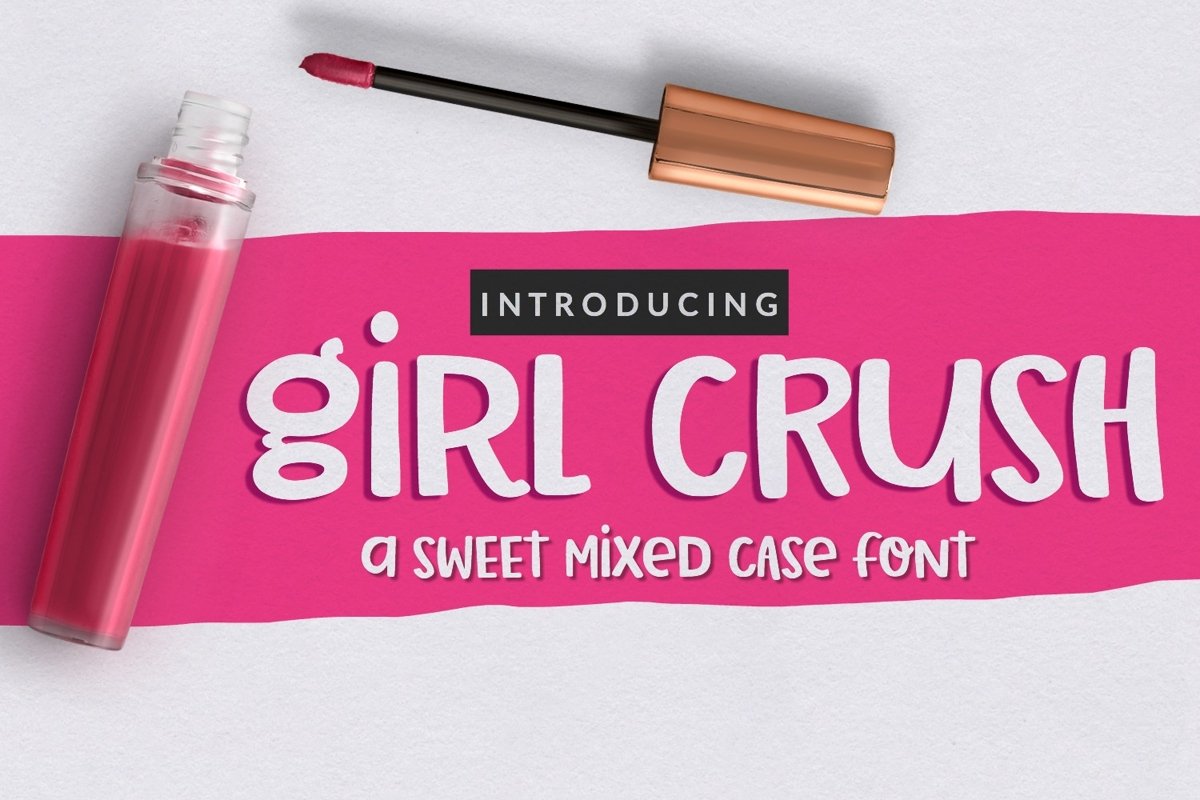
Girl Crush Handwritten Font
ABOUT THIS FONT
Girl Crush is a bold and spunky handwritten font that is perfect for so many design projects!  It is extra smooth for Cricut and Silhouette crafters, making it a great font for vinyl projects!
SS Girl Crush